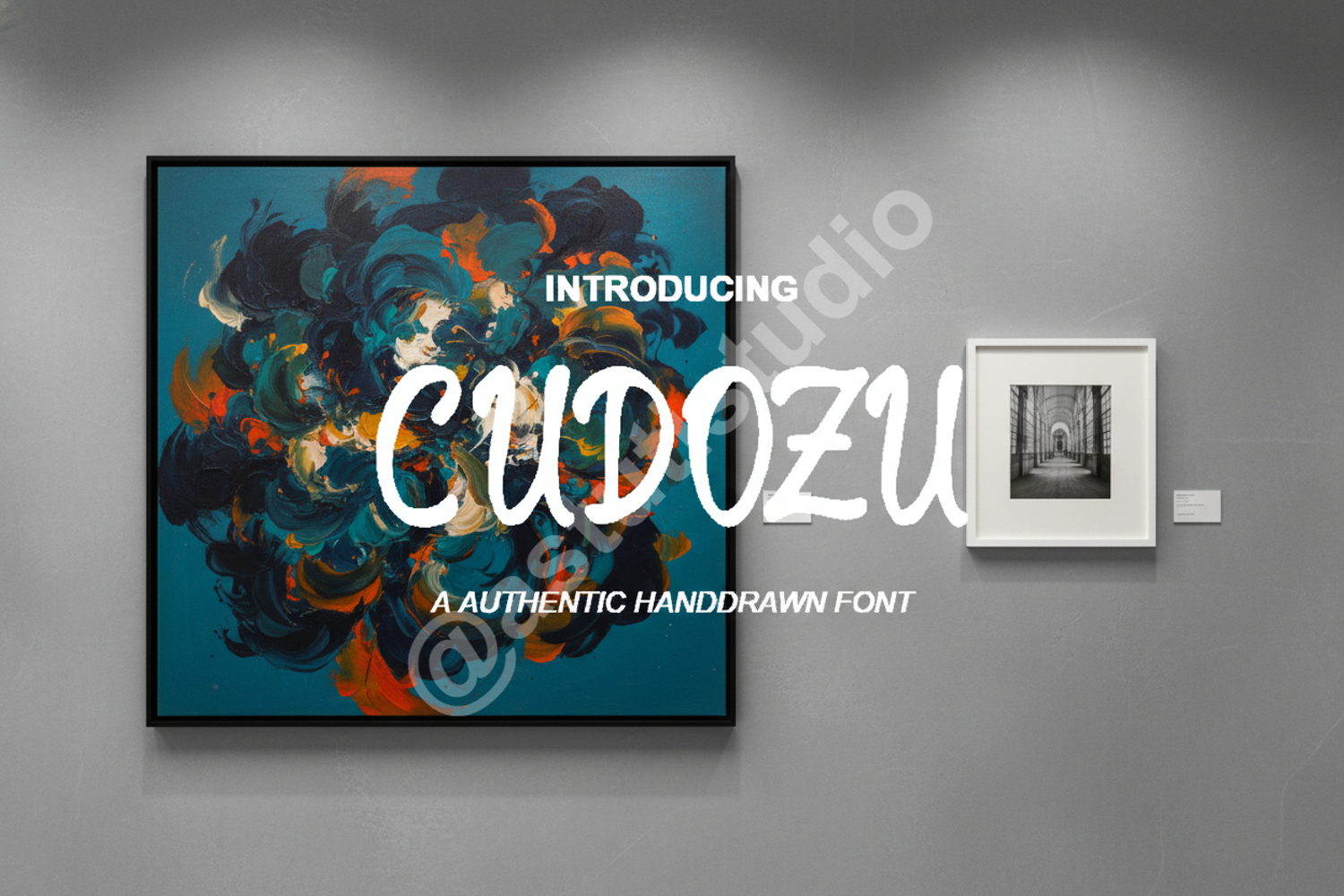
Cudozu - Modern Geometric Sans Serif Typeface
Cudozu
Elevate your creative projects with Cudozu, a premium geometric sans serif typeface designed for ultimate versatility and modern appeal. Cudozu combines clean, architectural lines with subtle contemporary details to create a font that is both professional and visually striking. Whether you are building a brand from the ground up or refining an existing layout, Cudozu provides the clarity and sophistication required for high-end design.
- Complete character set including uppercase and lowercase letters
- Numbers, punctuation, and essential symbols
- Multilingual support for global accessibility
- Professional Branding and Identity: Create memorable logos and corporate stationery.
- Editorial Design: Perfect for clean magazine layouts and book covers.
- Web and App UI: High legibility for digital interfaces and modern websites.
- Advertising: Bold headlines and clear body text for marketing campaigns.
- Packaging: Minimalist and premium product packaging designs.